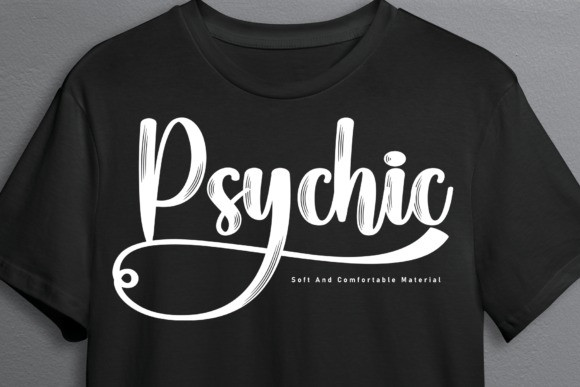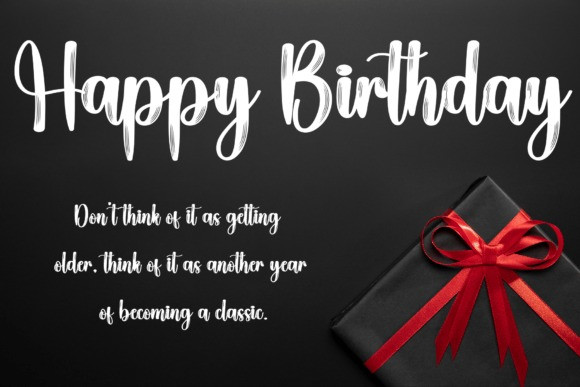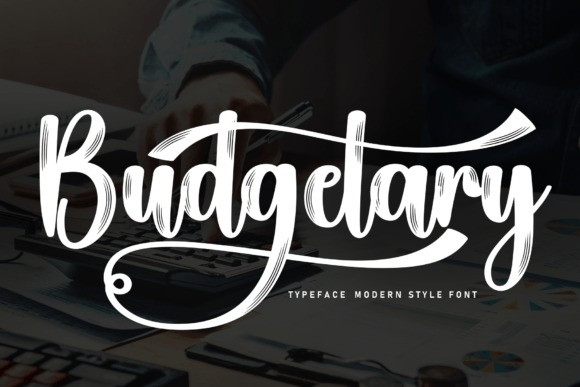
Budgetary Font
Budgetary Font is a lovely and timeless handwritten font. It is the best choice for creating eye catching logos, branding and quotes. Every letter has a unique and beautiful touch, which will make your design come alive!